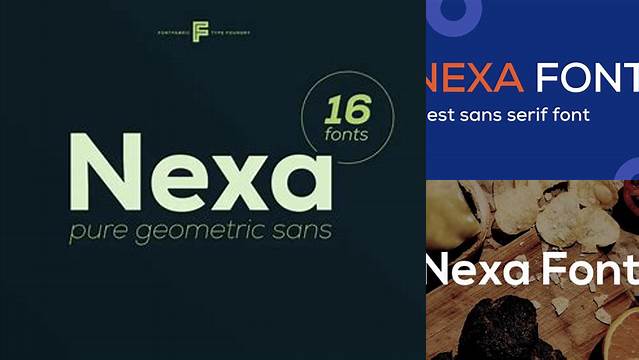
Nexa Free Font: Download, Usage, And Alternatives
Nexa is a super popular font family, and guys, we're diving deep into the free version today! We'll cover everything from where to download it, how to use it, and even some awesome alternatives if you're looking for something a little different. Let's get started!
1. What is Nexa Free Font?
Nexa Free Font is a geometric sans-serif typeface that's known for its clean, modern look. Created by Fontfabric, it's super versatile and works great for a ton of different projects, from logos and headlines to body text and web design. The free version typically includes a limited set of weights and styles, but it's still a fantastic resource for personal and commercial projects. We'll explore the specifics of the free version and what you can do with it. Understanding the origins and characteristics of Nexa Free Font is crucial for designers and creatives who want to leverage its potential in their projects. Knowing its geometric sans-serif nature means it excels in contemporary designs, where clarity and modernity are key. This knowledge allows for informed decisions about when and how to best employ Nexa Free Font, ensuring its strengths are maximized in various design applications. We'll also touch on the unique features that make Nexa Free Font stand out from the crowd, such as its letterform construction and overall aesthetic appeal, and give you an in-depth look into what makes this font so special.
3. Using Nexa Free Font in Your Projects
Now for the fun part: putting Nexa Free Font to work! This font is a total workhorse, but how do you actually use it? We'll break down some of the best use cases for Nexa Free Font, from eye-catching headlines to legible body text. We'll also give you some tips on pairing it with other fonts to create killer designs. Plus, we'll explore using Nexa Free Font in various software programs like Adobe Photoshop, Illustrator, and even Microsoft Word. Because let's be real, we all use Word sometimes! Understanding how to integrate Nexa Free Font into your workflow is essential for making the most of its versatility. Whether you're designing a logo, a website, or a simple document, knowing how to effectively use Nexa Free Font will elevate your designs. Let's explore the possibilities and get your creative juices flowing!
5. Nexa Free Font vs. Nexa Full Family: What's the Difference?
You've got the free version of Nexa Free Font, but you might be wondering what you're missing out on with the full family. We're going to break down the differences between Nexa Free Font and the full Nexa font family. This includes outlining the extra weights and styles that come with the full version, like bold, italic, and more. We'll also discuss the extended character set and language support available in the complete package. Is the upgrade worth it? We'll weigh the pros and cons based on your needs and budget. If you're working on a project that demands a wide range of styles and weights, understanding the full Nexa font family can be a game-changer. So, let's compare the features and help you decide if it's time to level up your font game!
6. Best Font Pairings for Nexa Free Font
Nexa Free Font is fantastic on its own, but pairing it with the right fonts can take your designs to the next level. We're going to explore some of the best font pairings for Nexa Free Font. We'll look at both serif and sans-serif pairings to give you a variety of options. Think classic combinations like Nexa with a timeless serif for a sophisticated look, or pairing it with a quirky script font for a more playful vibe. We'll also provide examples of font pairings in action, so you can see how they work in real designs. Finding the perfect font pairing is like finding the perfect sidekick – it enhances the main star and makes the whole team shine! Let's discover some killer font duos that will make your designs pop.
7. Nexa Free Font Alternatives: Exploring Similar Fonts
Okay, maybe Nexa Free Font isn't exactly what you're looking for. No worries! There are tons of other awesome fonts out there. We'll explore some Nexa Free Font alternatives that offer a similar vibe. This includes other geometric sans-serif fonts that share Nexa's clean, modern aesthetic. We'll also consider free and premium options, because everyone loves a good freebie (but sometimes you gotta splurge!). Plus, we'll highlight the unique characteristics of each alternative, so you can find the perfect fit for your project. Whether you're seeking a different weight, a unique character, or simply a fresh perspective, exploring alternatives can open up a whole new world of typography possibilities. Let's dive into the world of similar fonts and find some hidden gems!
8. Designing Logos with Nexa Free Font
Looking to create a killer logo? Nexa Free Font can be a fantastic choice. We'll explore how to use Nexa Free Font effectively in logo design. This includes discussing the strengths of Nexa Free Font for brand identity, such as its legibility and modern appeal. We'll also cover best practices for using fonts in logos, like considering scalability and visual impact. Plus, we'll showcase examples of successful logos that use geometric sans-serif fonts similar to Nexa Free Font. Designing a logo is all about creating a lasting impression, and choosing the right font is a crucial step. Let's uncover how Nexa Free Font can help you build a memorable brand identity!
9. Using Nexa Free Font for Website Design
Websites need fonts too, and Nexa Free Font can be a great option for your online presence. We'll delve into using Nexa Free Font for website design, including discussing its readability on screens. We'll also cover tips for using Nexa Free Font in headlines, body text, and navigation menus. Plus, we'll address the importance of web font optimization and how to ensure Nexa Free Font loads quickly on your site. Your website's typography is a key element of its user experience, and choosing a legible and aesthetically pleasing font is essential. Let's explore how Nexa Free Font can elevate your website's design!
30. Where to Find Inspiration for Using Nexa Free Font
Need some inspiration? We'll explore where to find inspiration for using Nexa Free Font, including design blogs, websites, and online communities. This involves sharing resources and examples of successful typography. Staying inspired is key to creating fresh and innovative designs. Let's discover some fantastic sources of inspiration and get your creative juices flowing! So, guys, that’s pretty much it for Nexa Free Font! You’ve got the lowdown on downloading, using, and making the most of this awesome font. Now go out there and create something amazing!